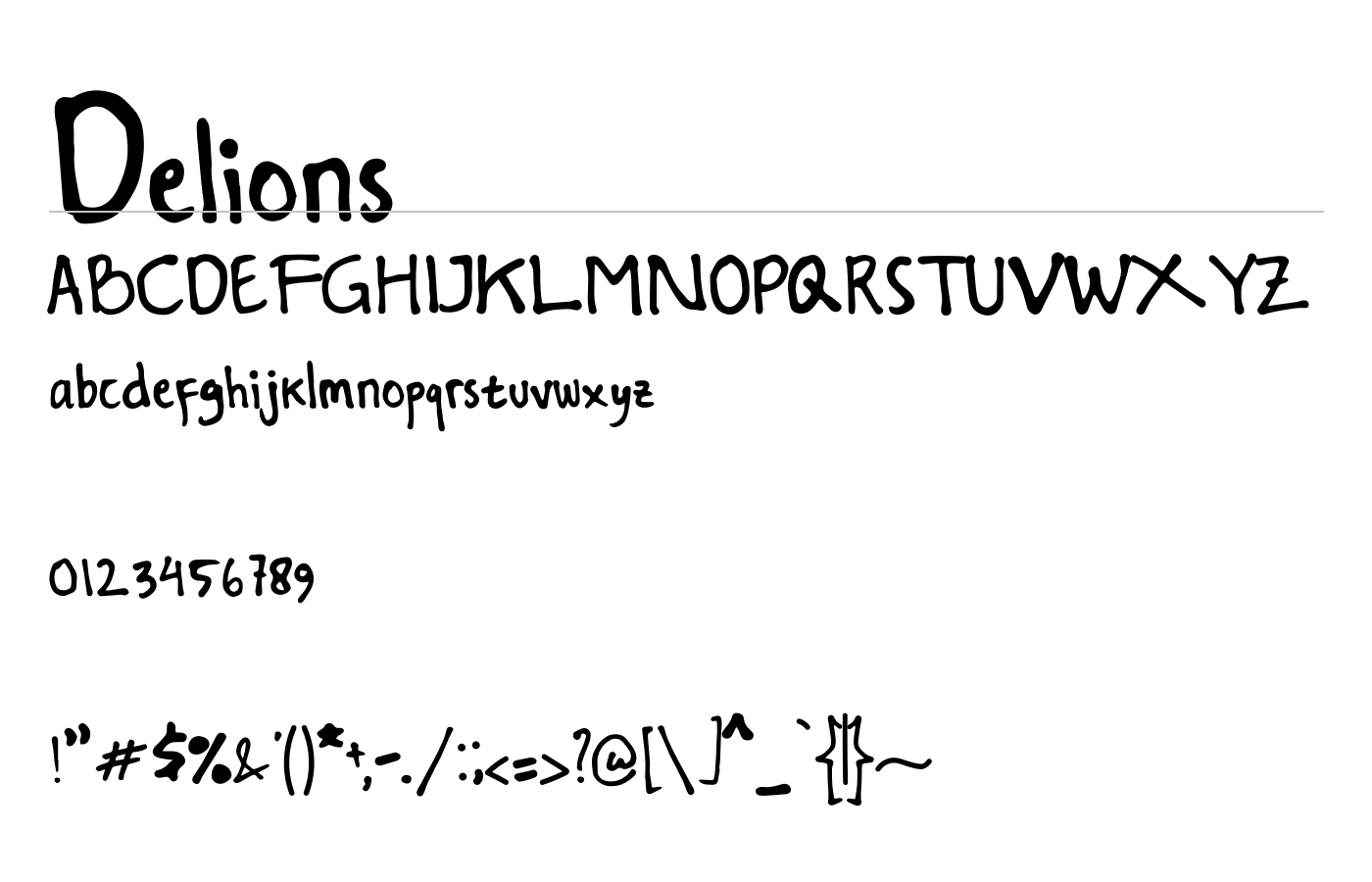
Delions Font
Delions Font is a hand-made font that depicts happiness and courage in many ways as does a brave lion king! Delions can be applied in various ways with its distinctive character that is cheerful and brave, making it stand out in many ways. This free typeface was designed by talented Pradipta Creative. If you like it don’t forget to check out the full version.